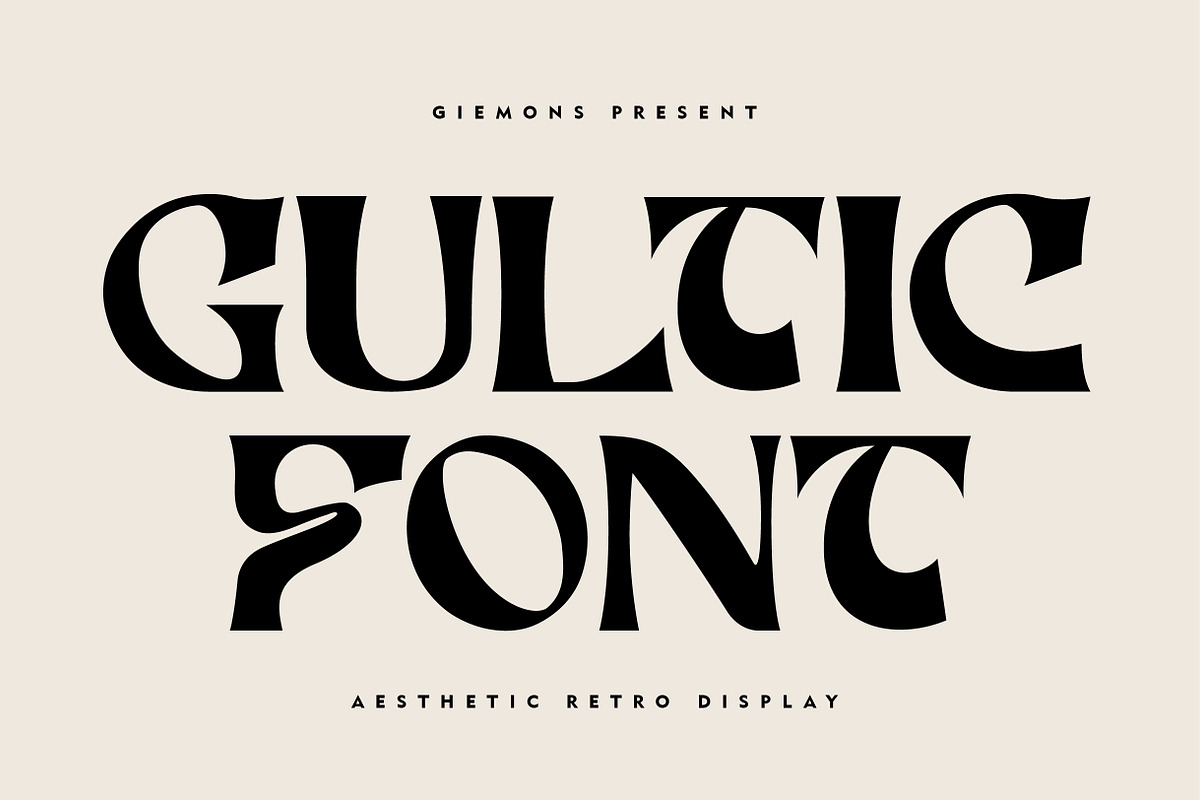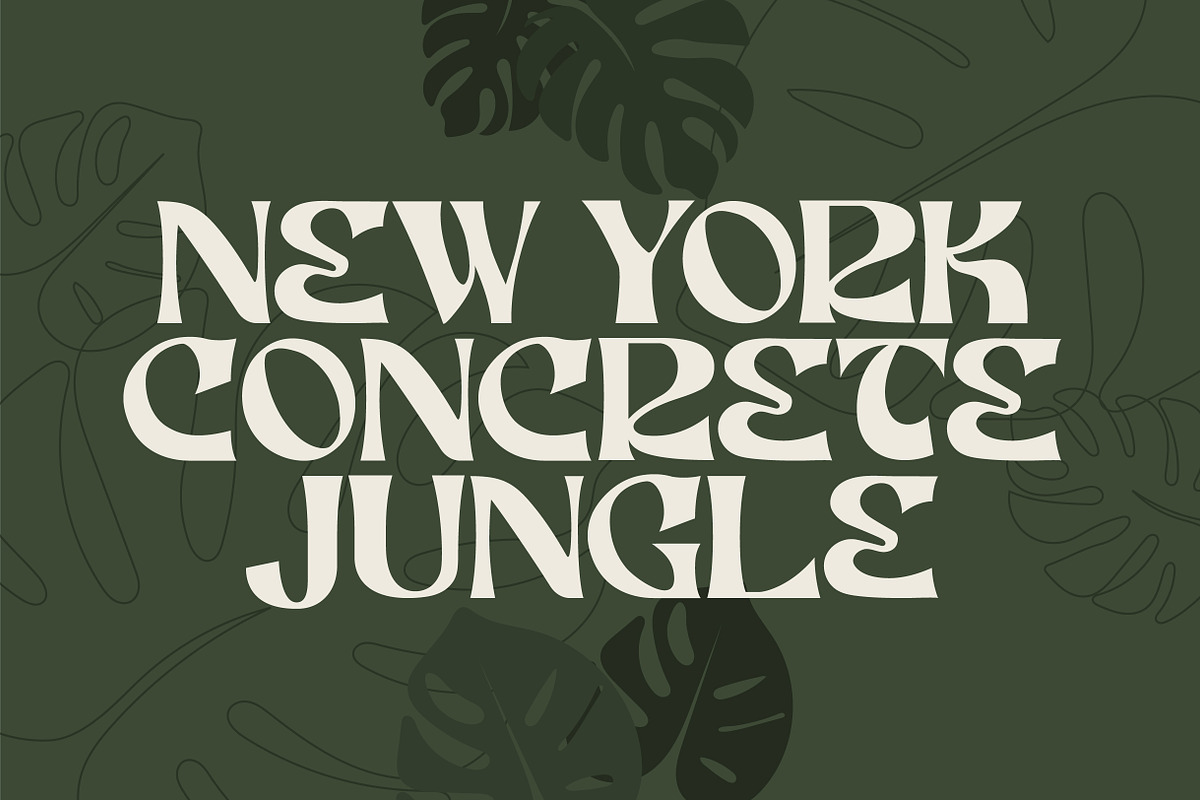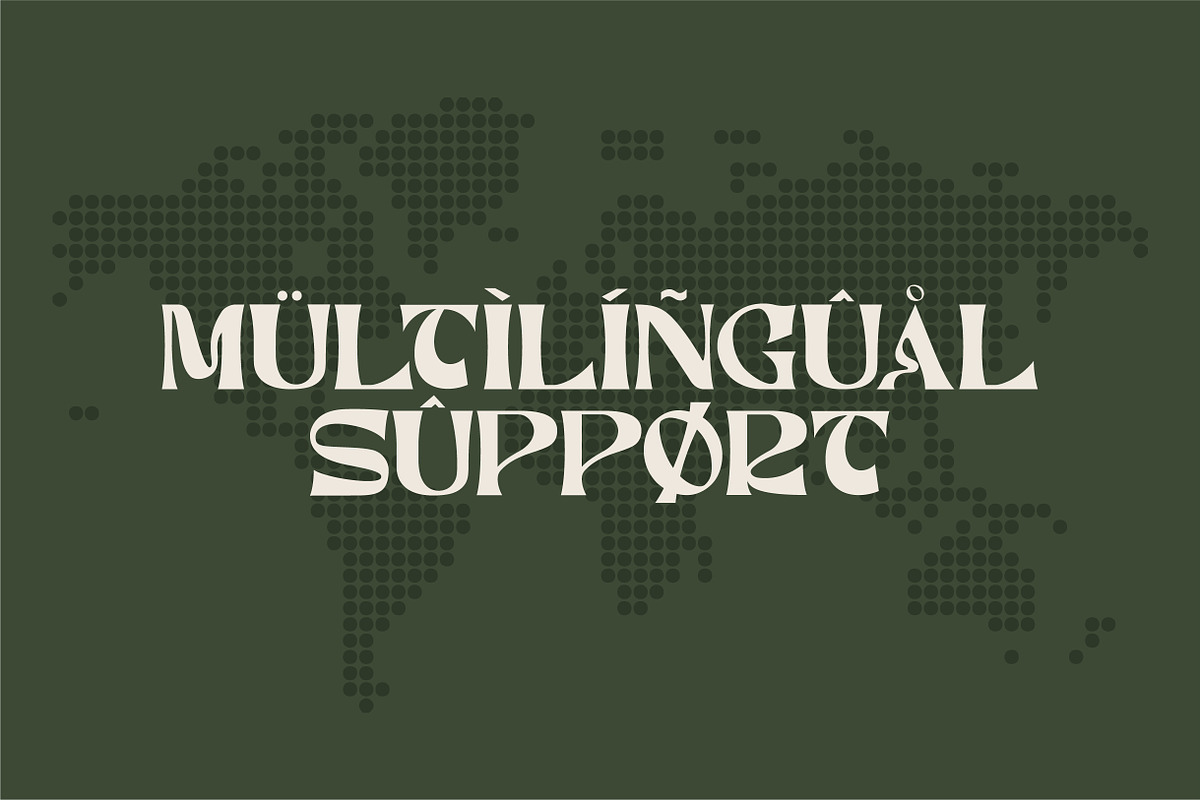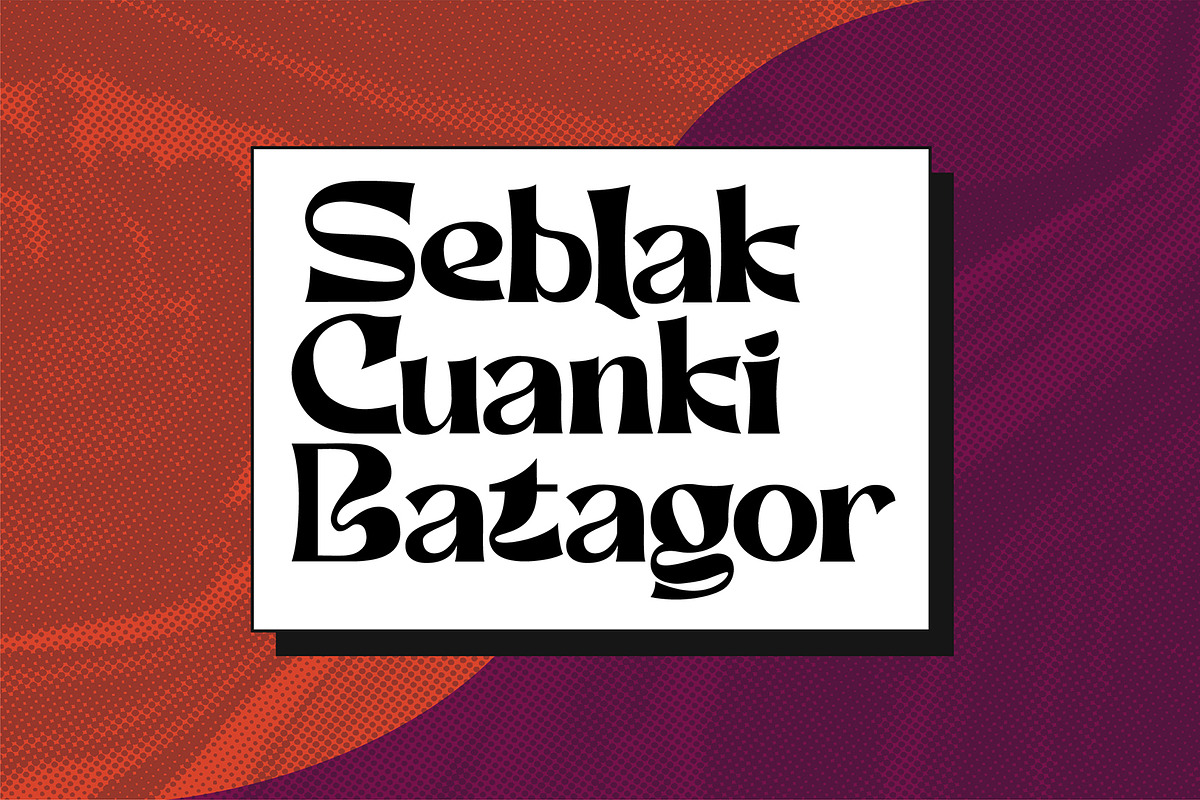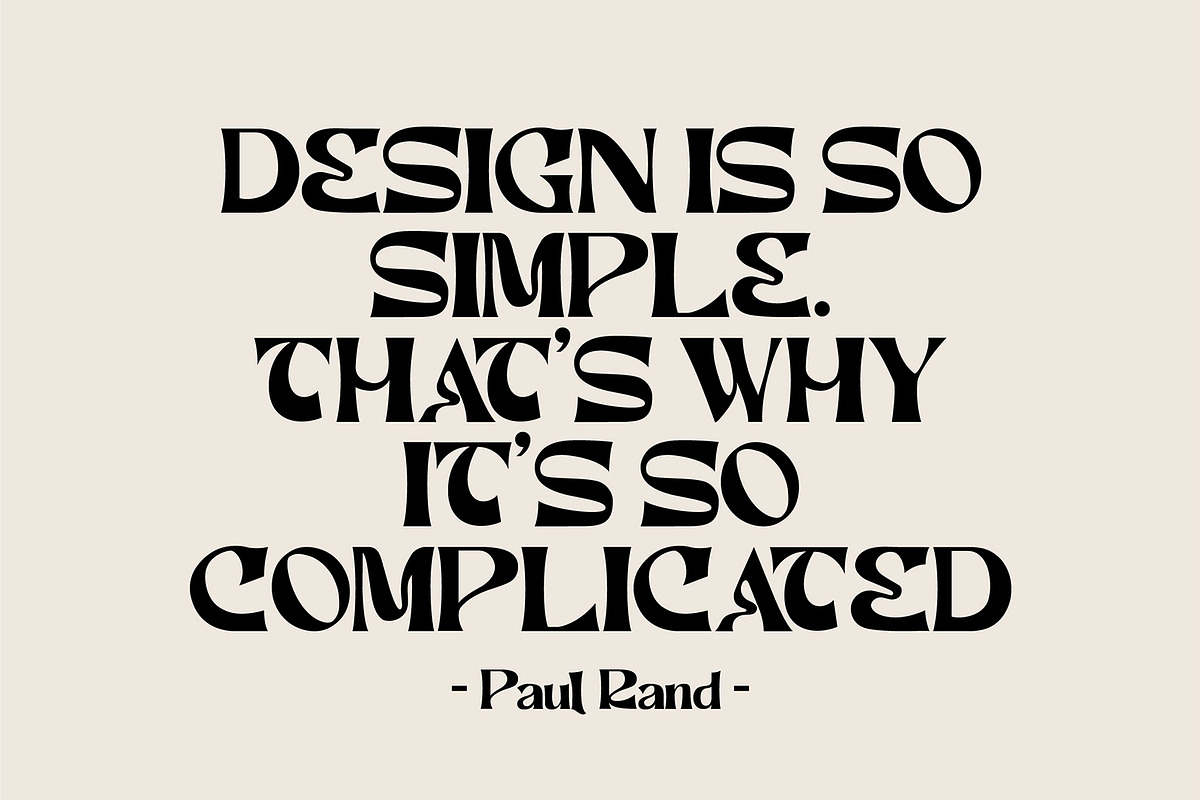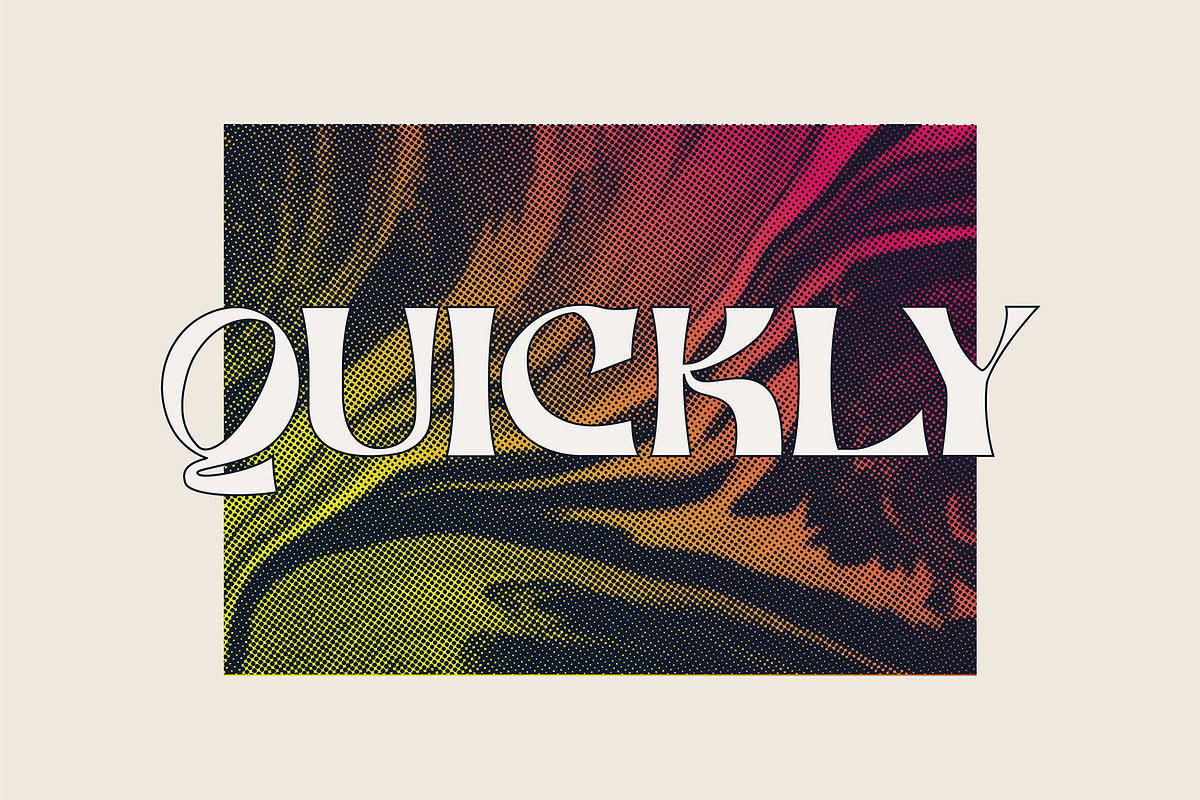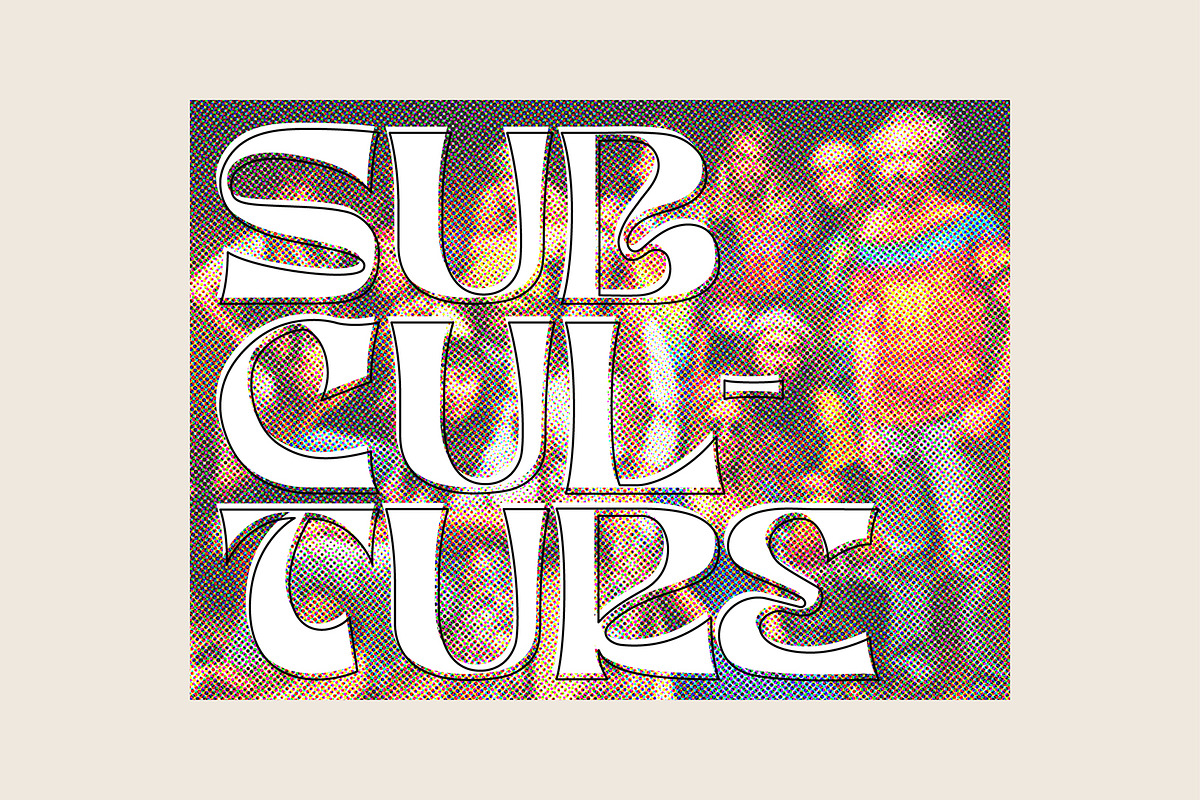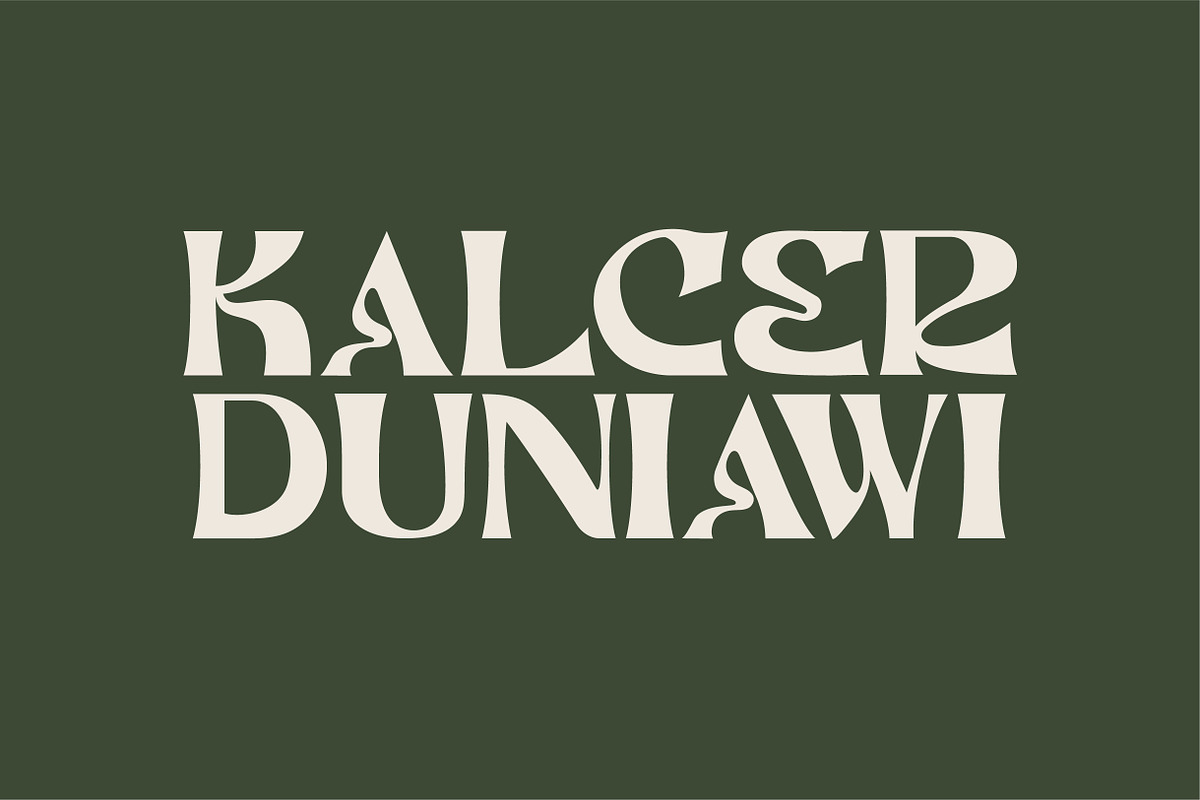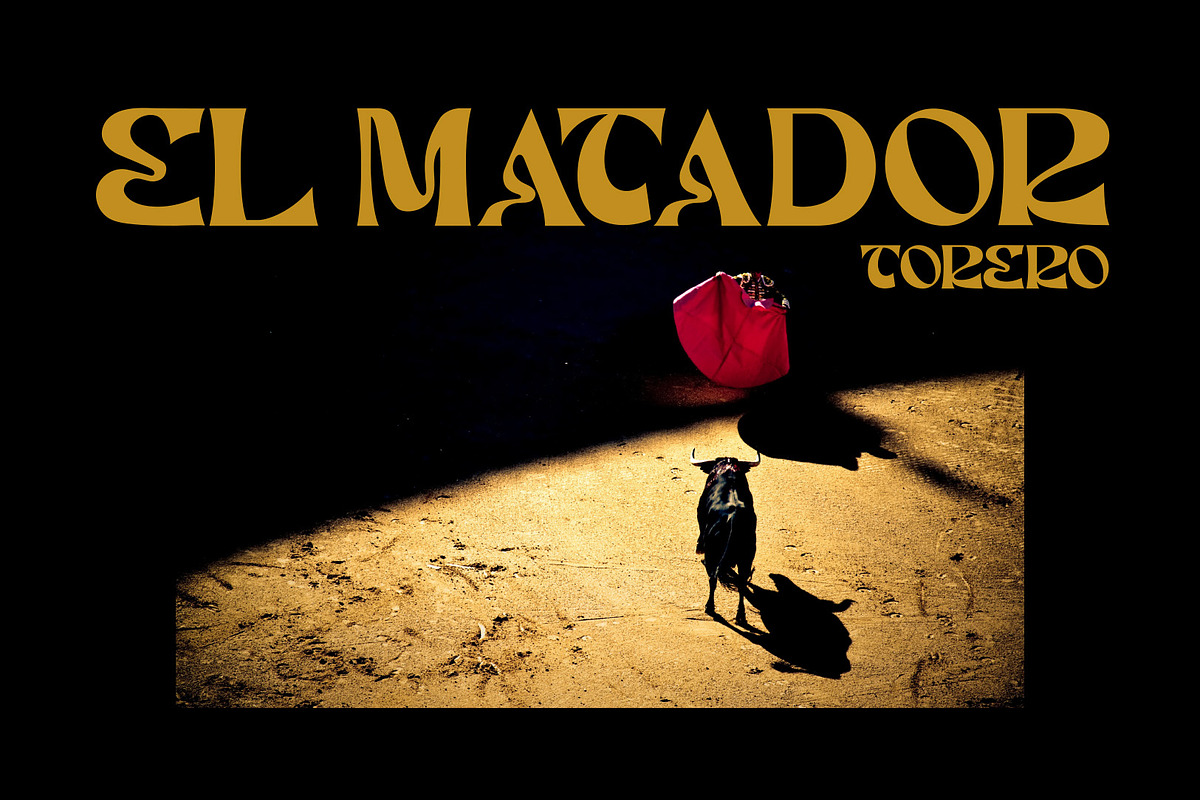
Gultic Font - Display
Gultic is a font aesthetic retro display. Twist the bold, loud, yet poppin' and modern retro vibes that will be stylish in any era.
Perfectly fit forbranding, logo, digital concept, promotion design, poster, flyer, graphic design, anytime you need a future touch.